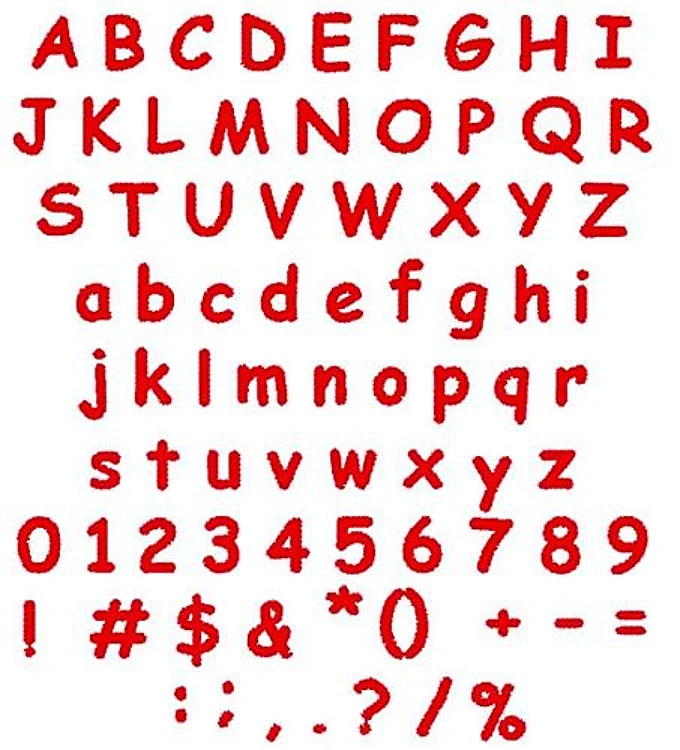
Internet Stitch is happy to present Comic Sans machine embroidery font which has Classic block machine embroidery font featuring bold, filled letters. Ideal for playful designs on cushions and apparel. Available in PES, DST, and 9 other formats. included. If you would like to view more embroidery fonts and alphabets please search our embroidery fonts page.